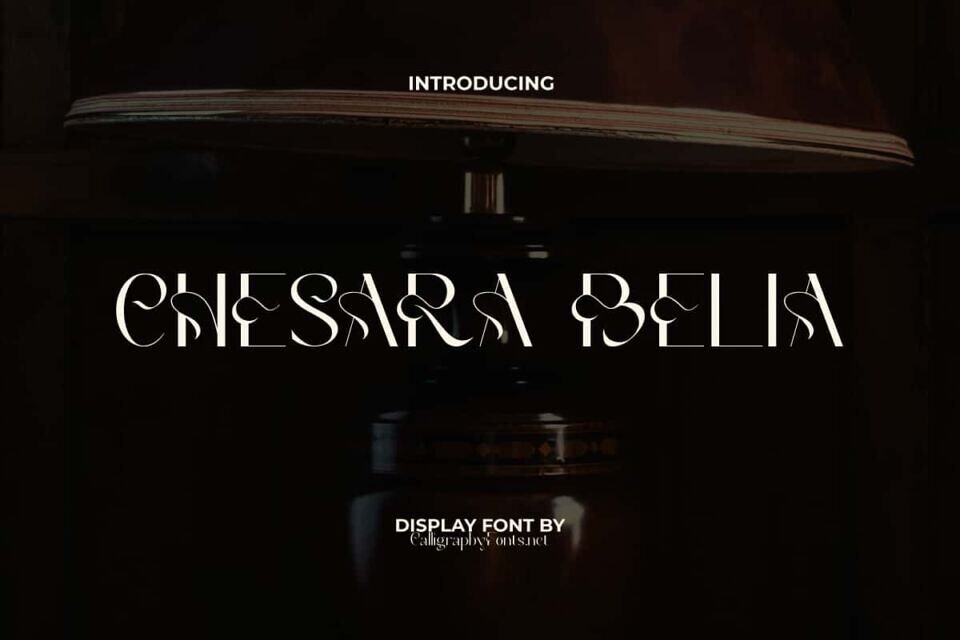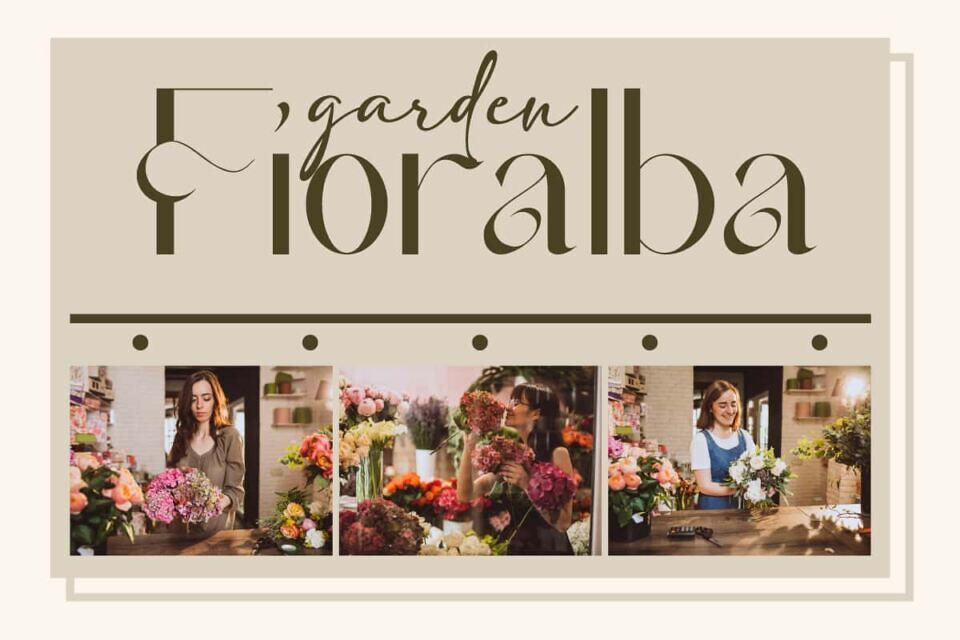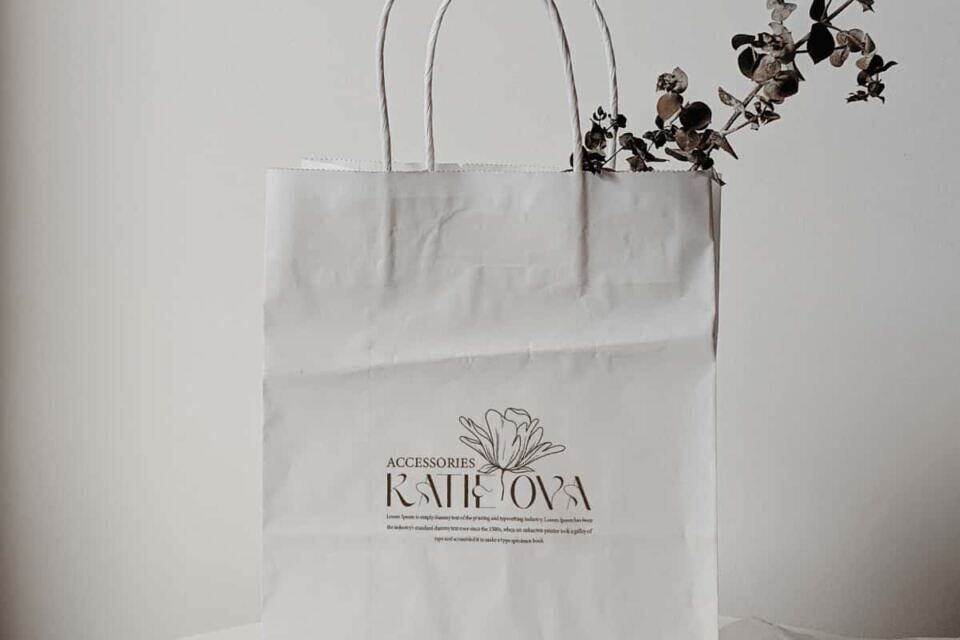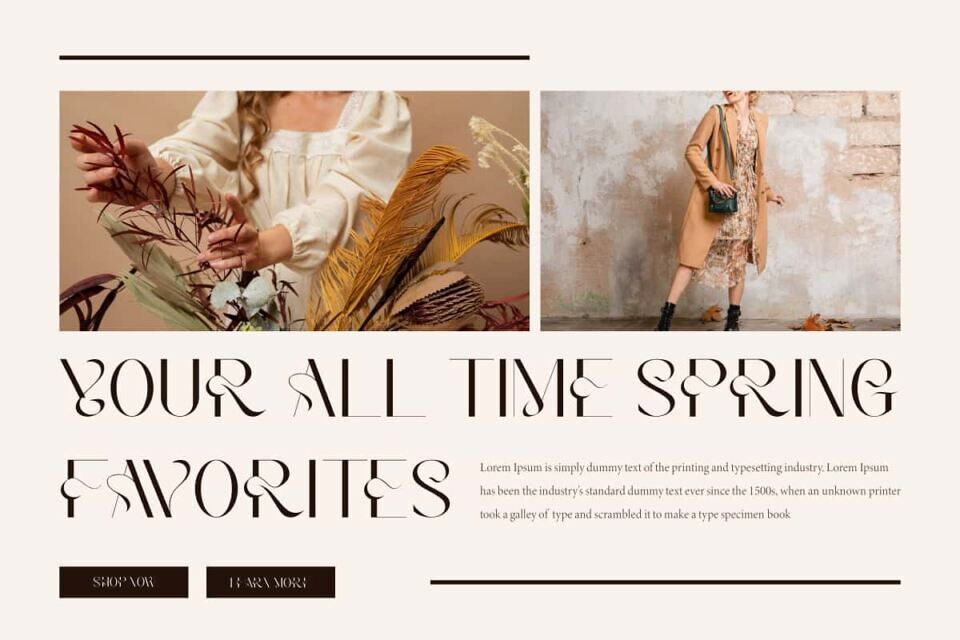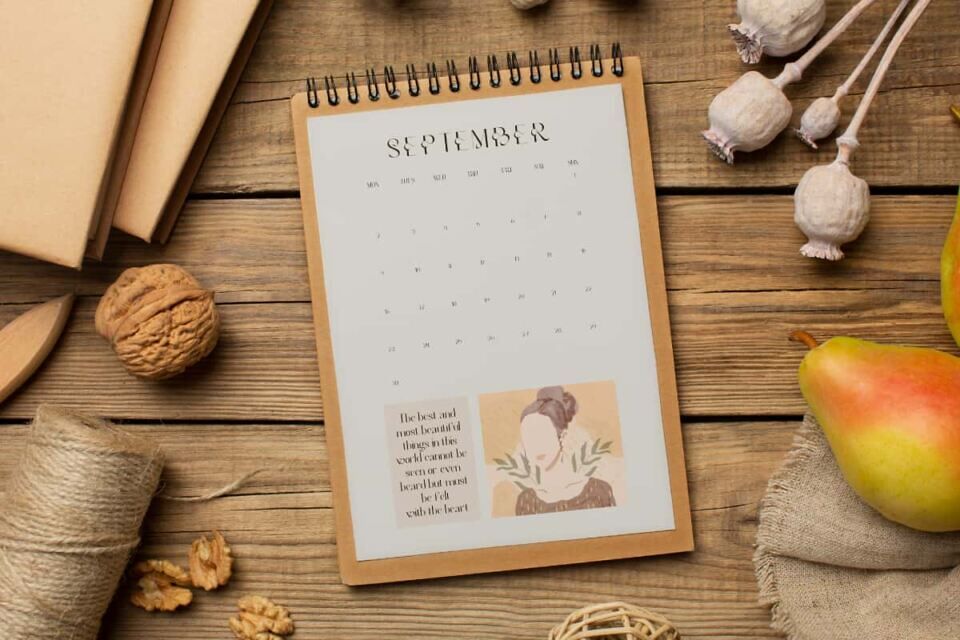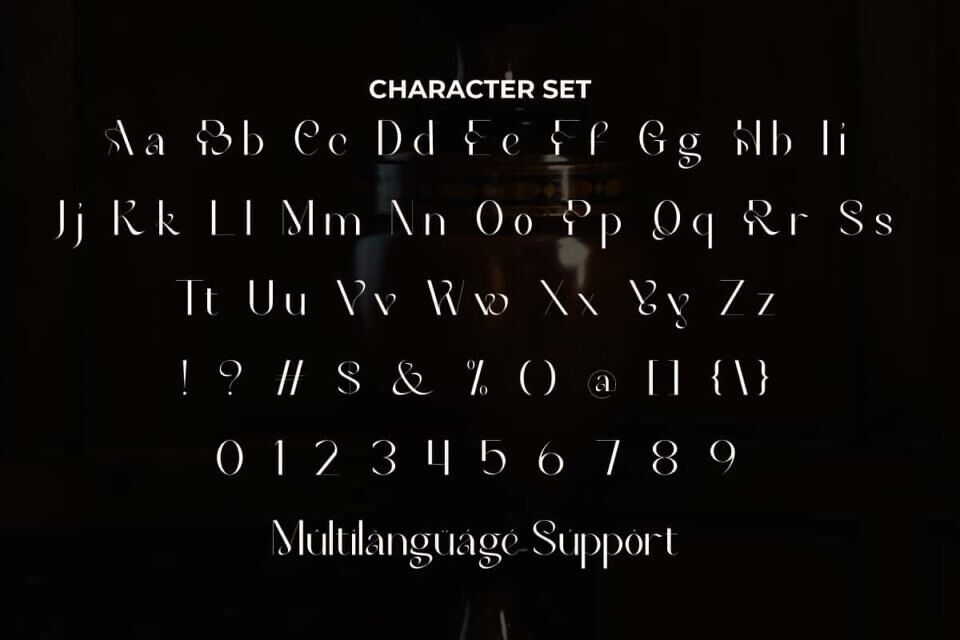
Chesara Belia Font
Chesara Belia Font is a unique elegant yet sophisticated sans serif display with a striking visual character that is different from the usual. Its curves are eye-catching and its thin style maintains a classy feel. Perfect for apps, blogs, covers, greeting cards, headers, headline, invitation, label, logos, mockup, packaging, quotes, screen printing, signage, social media design post, stationery, sticker, template, title, watermark, website, and many more.
Chesara Belia Font makes it very easy for you to play around with customization to create any creative look you want. Useful for both digital and print purposes, and able to be dominant in any situation, both formal and informal. Perfect for accessories and gift, advertising, apparel, author, boutique, corporate, cosmetologist, fashion, florist, graphic designer, handicraft, home furniture, interior designer, photography, publisher, restaurants, spa salon, and more.